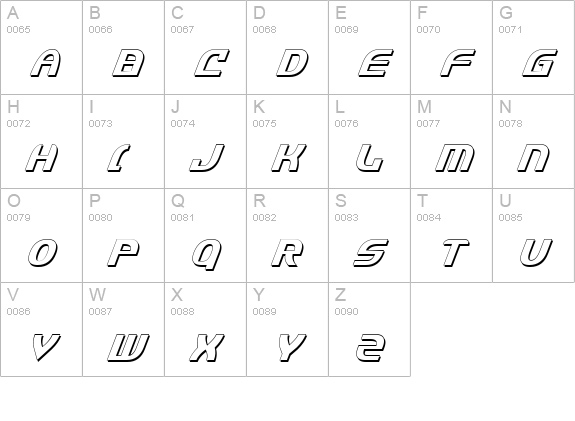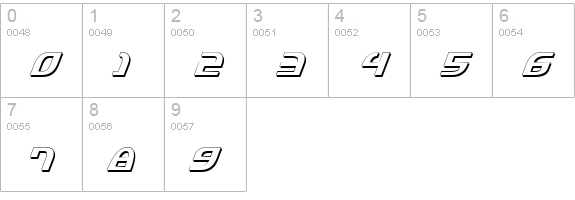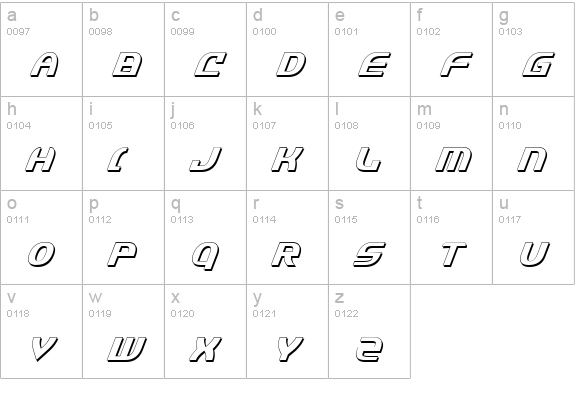
Jannisaries Shadow Italic is a distinctive, italic variant in the Jannisaries typeface family \xE2\x80\x94 well suited to design and typography projects.
Jannisaries Shadow Italic is a stunning and bold font that exudes an air of mystery and intrigue. With its unique and distinctive design, this font is perfect for adding a touch of drama and elegance to any project. The italicized nature of Jannisaries Shadow Italic adds a sense of movement and fluidity to the letterforms, making it ideal for conveying a sense of motion or action in your designs. Each letter is carefully crafted with intricate details, creating a captivating visual experience that draws the viewer in. This font is versatile and can be used for a variety of purposes, from designing eye-catching logos and branding materials to creating captivating headlines and titles. Its striking appearance is sure to leave a lasting impression on your audience. One of the best aspects of Jannisaries Shadow Italic is that it is freely available to download at FontsMarket.com. This means that you can easily access and utilize this stunning font in your projects without any cost. Whether you are a professional designer or simply a creative individual looking to add a unique touch to your work, Jannisaries Shadow Italic is the perfect choice. So, if you are searching for a font that combines elegance, drama, and a touch of mystery, look no further than Jannisaries Shadow Italic. Download it for free at FontsMarket.com and unleash your creativity today.